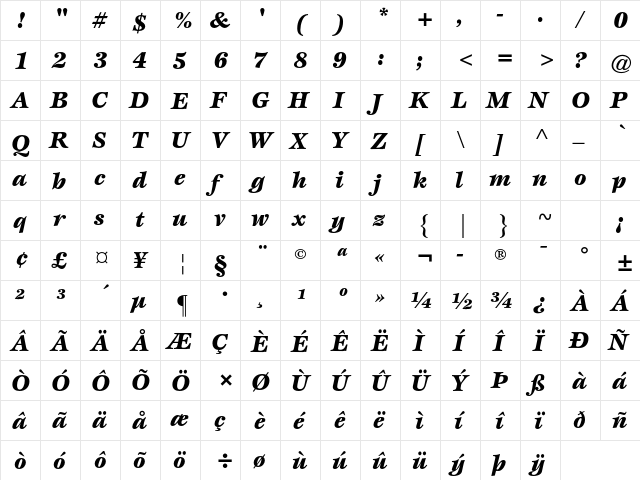
ITC Esprit Std Black Italic Font Preview
ITC Esprit Std Black Italic
| Designer | Jovica Veljovic |
Design Context for ITC Esprit Std Typeface
ITC Esprit Std offers clean, dependable letterforms without strong stylistic allegiance, making it a practical choice for designers who need flexibility. The dynamic lean of this cut emphasises speed and emphasis in any layout.
Pro Tip: Use ITC Esprit Std for emphasis, pull quotes, and subheadings where its slanted energy can add rhythm to the layout.